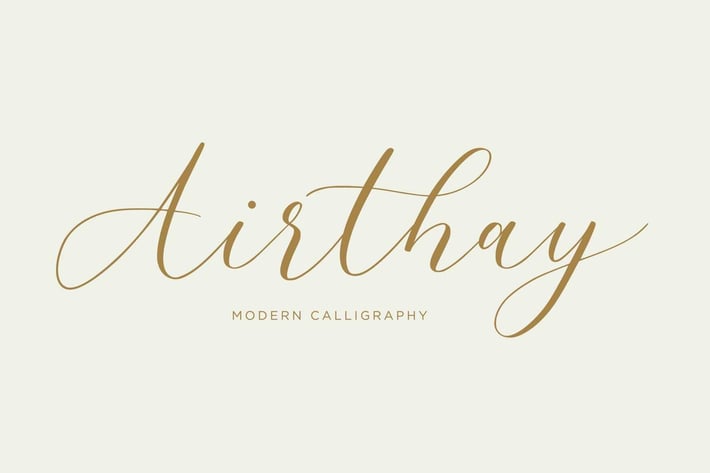
Airthay - Modern Calligraphy Wedding Font
Airthay is a Beautiful Modern Calligraphy script font carefully created with a touch of romantic.
This is a beautiful combination of timeless elegance and authentic calligraphy,